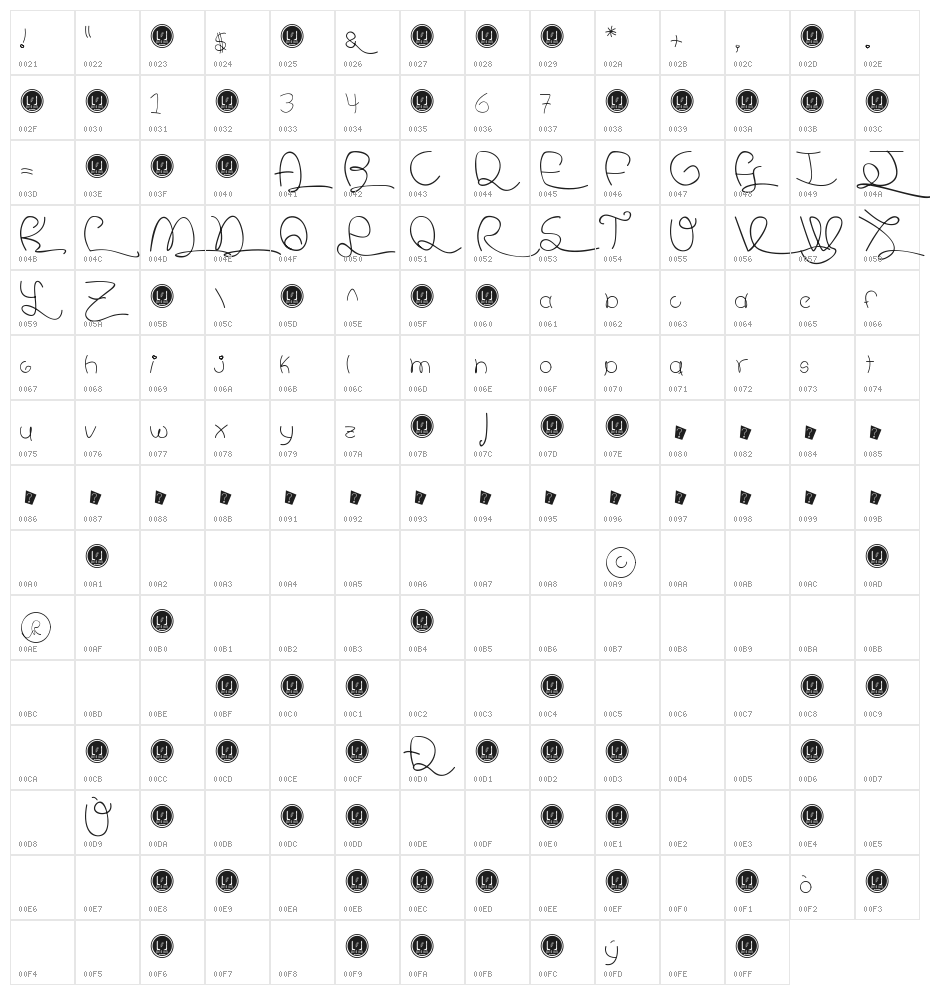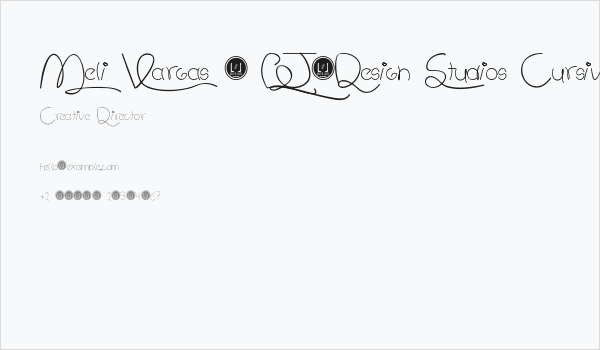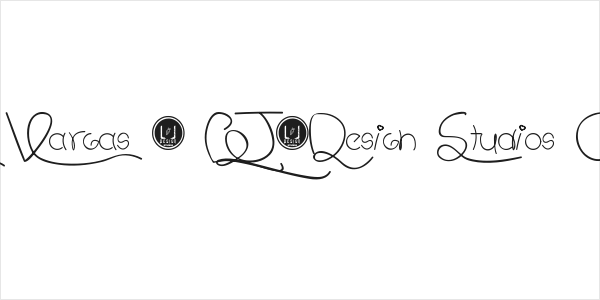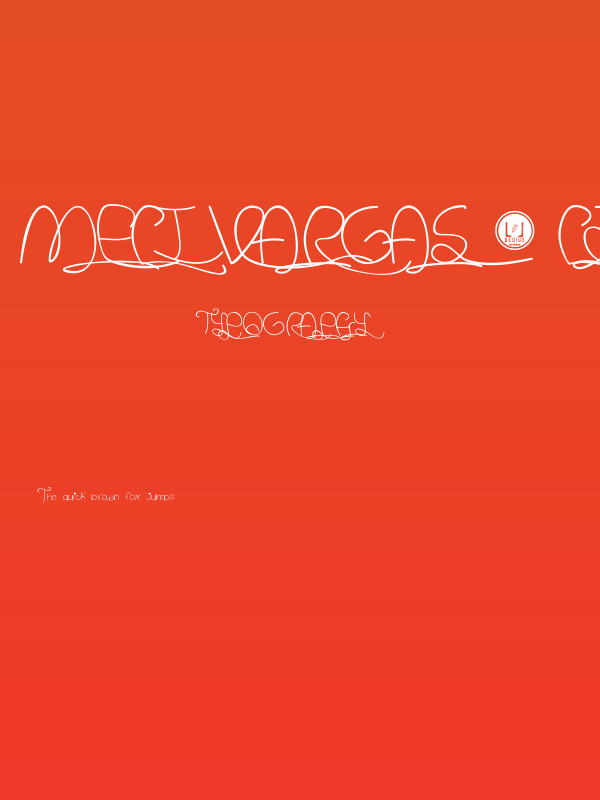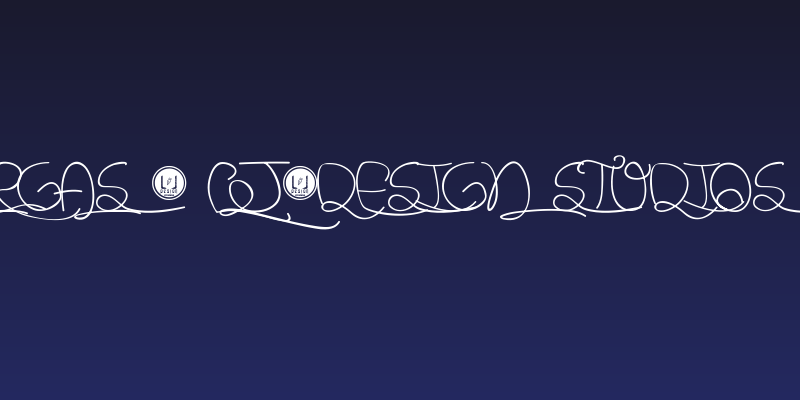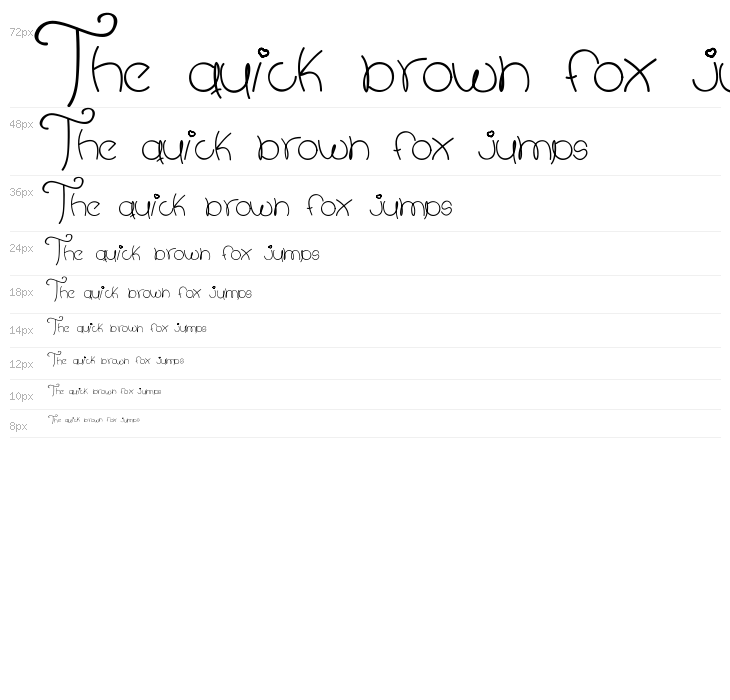
Meli Vargas - LJ-Design Studios Cursiva Font
Meli Vargas - LJ-Design Studios Cursiva Description
This font features an intricate and decorative cursive style, characterized by its flowing and interconnected letterforms. The uppercase letters exhibit elaborate loops and swirls, creating a sense of elegance and artistic flair. The lowercase letters maintain a more subdued yet still decorative appearance, complementing the uppercase with their smooth curves and subtle embellishments. The numerals and special characters are consistent with the overall style, incorporating similar loops and curves. This font's unique design makes it suitable for creative and artistic projects where a touch of sophistication is desired.
| Use Case | Logos, Invitations, Artistic Branding |
| Proposed Projects | Ideal for wedding invitations, artistic branding, greeting cards, and decorative posters. |